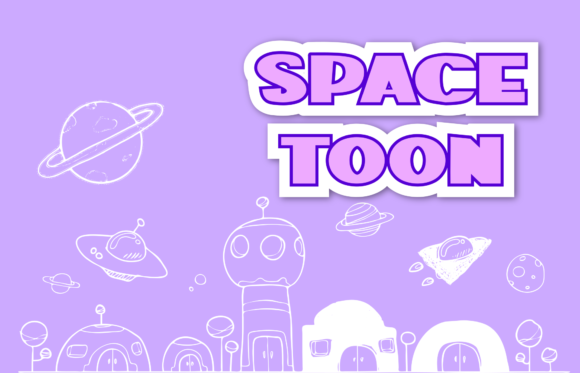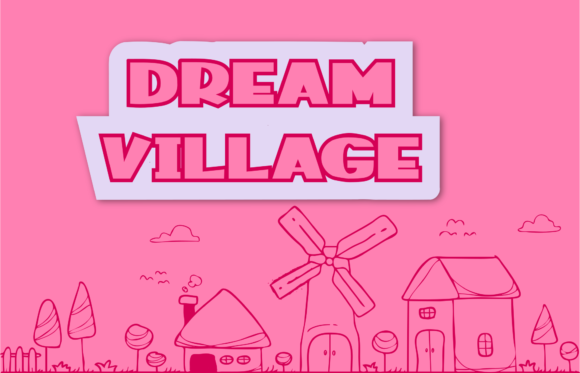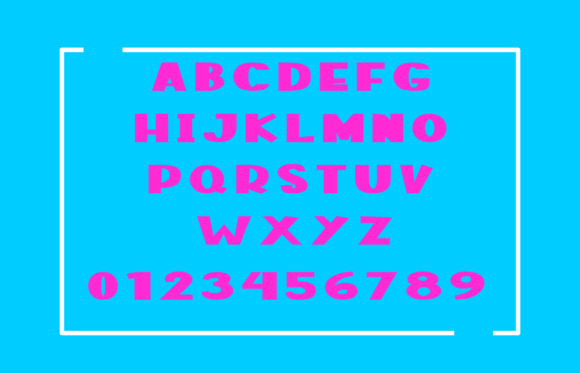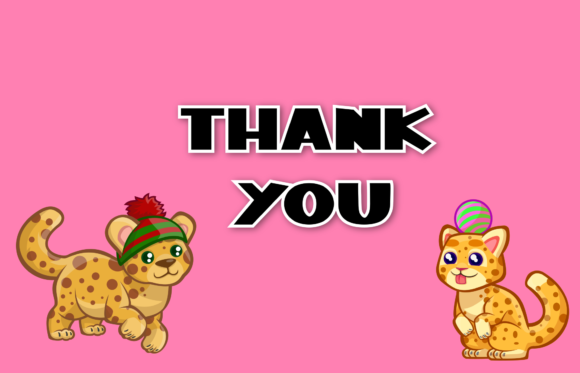
Introduction to Little Tiger Font
Have you ever been working on a creative project and wished you had the perfect font to bring your idea to life? That’s exactly what happened to me when I stumbled upon the Little Tiger Font. As a designer, I’ve always been on the lookout for unique and high-quality design resources that can add a touch of personality to my work.
Little Tiger Font is a cool, thick lettered and trendy display font that’s perfect for cartoon-related designs, children’s games, or any project that requires a playful and eye-catching touch. With its bold and vibrant style, this font is sure to make your design stand out from the crowd. And the best part? It’s available for free download, making it an invaluable resource for designers who want to add a professional touch to their work without breaking the bank.
Key Features of Little Tiger Font
- High-quality design: The Little Tiger Font is a unique and creative design resource perfect for any project.
- Unique characteristics: The Little Tiger Font features a playful and whimsical design, making it ideal for children’s books, educational materials, and other creative projects.
Honest Review: Little Tiger Font
I recently stumbled upon the Little Tiger Font, and I must say it’s a unique addition to my design resource collection. The font’s playful, whimsical feel makes it perfect for a creative project that needs a touch of personality.
- ✨ The font’s high quality is evident in its crisp lines and smooth curves.
- ⚠️ The font’s limited character set may not be suitable for longer texts or complex content.
- ⚠️ Some users may find the font’s playful feel too childish for certain design projects.
Overall, I’m impressed with the Little Tiger Font’s potential as a design resource. While it may have some limitations, its unique charm and high quality make it a great addition to any designer’s toolkit. I’d definitely consider using it for future creative projects.
The Little Tiger Font is a unique and high-quality design resource ideal for creative projects. Its bold and playful style makes it perfect for various applications, from branding to editorial content.
Common Use Cases for Little Tiger Font
The Little Tiger Font is ideal for various applications, including:
- Editorial content and magazines
- Children’s books and educational materials